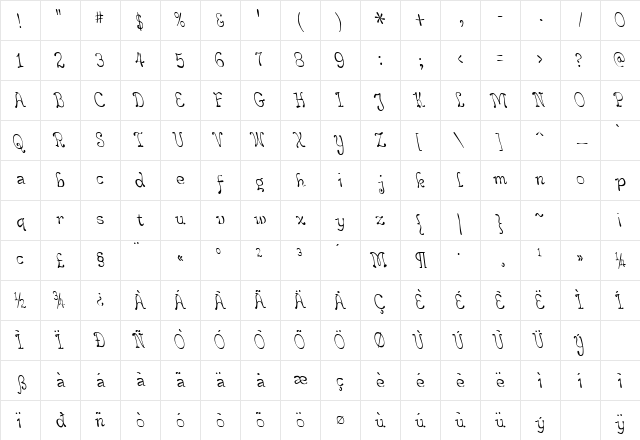
LeakorLeachLeft Regular Free Font
LeakorLeachLeft Regular
Design Context for LeakorLeachLeft
LeakorLeachLeft is a composed and adaptable typeface that performs quietly and consistently across a wide range of design contexts.